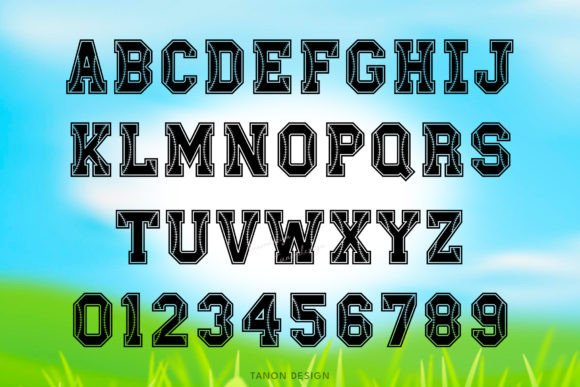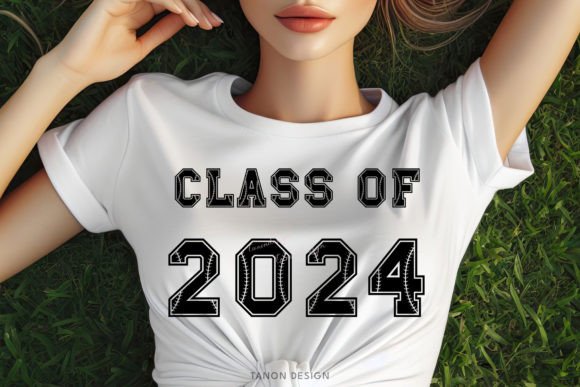
Get Ready to Hit a Home Run with B Sporty Baseball Font
Remember the thrill of designing a project that just clicks? The excitement of seeing your ideas come to life, and the satisfaction of knowing you’ve created something truly special? That’s what happens when you pair your creativity with the perfect font. For designers looking to add a touch of fun and sportiness to their projects, we’ve got just the thing – B Sporty Baseball Font.
This fantastic font is designed to make a statement on t-shirts, mugs, digital designs, crafts, cards, and more. Its unique style is sure to capture attention and leave a lasting impression. Whether you’re a seasoned designer or just starting out, B Sporty Baseball Font is a valuable addition to your toolkit. With its versatility and fun aesthetic, you’ll be able to create projects that are both visually appealing and memorable.
B Sporty Baseball Font Key Features
- Font Family: B Sporty Baseball Font is a unique, hand-drawn baseball-inspired font designed for various applications.
- Unique Characteristics: Distinctive baseball-inspired design elements, such as stitched lines and texture, add a touch of nostalgia and sportsmanship to any project.
B Sporty Baseball Font Review
First off, let’s talk about what Sporty Baseball Font does well. It’s a fun, energetic font that’s perfect for sports-related designs. It ✨ captures the essence of a baseball stadium, with its bold lines and playful feel. The font is also very readable, making it suitable for headings, titles, and even body text.
Another aspect I appreciate is the customizability of the font. You can easily adjust the weight, opacity, and color to suit your design needs. This level of flexibility is a big plus in my book.
Now, let’s talk about the not-so-great things about Sporty Baseball Font. One major limitation is its lack of ligatures. While the font is well-suited for headings and titles, it can look a bit awkward when used in longer blocks of text. Additionally, the font’s character set is a bit limited, making it difficult to use in languages that require a wider range of characters.
In conclusion, Sporty Baseball Font is a solid choice for sports-related designs. While it has some limitations, its customizability and fun, energetic feel make it a great option for designers looking to add some excitement to their projects.
Key Features
- Fun, energetic feel
- Customizable weight, opacity, and color
- Readable font
- Limited ligatures and character set
Tips for Getting the Most Out of the Font
Use the B Sporty Baseball Font to add a touch of sporty elegance to your designs. Pair it with bold colors and geometric shapes for a dynamic look.
The B Sporty Baseball Font is perfect for:
- Sporting event invitations and promotional materials
- Baseball-themed merchandise and apparel
- Fun and energetic blog posts and social media graphics
Alternatives to B Sporty Baseball Font
Pacifico is a beautiful, cursive script font that can add a touch of elegance and sophistication to your design. It is perfect for use in branding, advertising, and editorial content where a unique and eye-catching font is required. Pacifico is more elegant and less sporty compared to B Sporty Baseball Font, making it a suitable choice for designers looking for a more refined look.
Great Vibes is a modern, handwritten font that can add a sense of playfulness and creativity to your design. It is ideal for use in social media graphics, blog posts, and other digital content where a casual and approachable tone is desired. Great Vibes is more energetic and less formal compared to B Sporty Baseball Font, making it a suitable choice for designers looking for a fun and lively look.